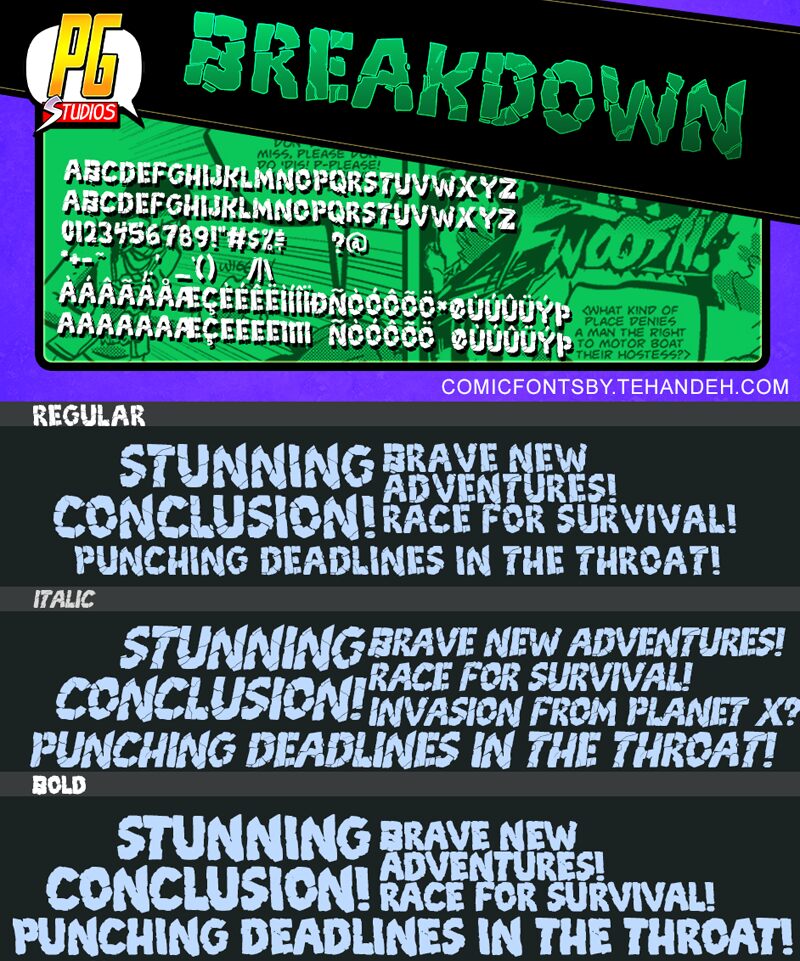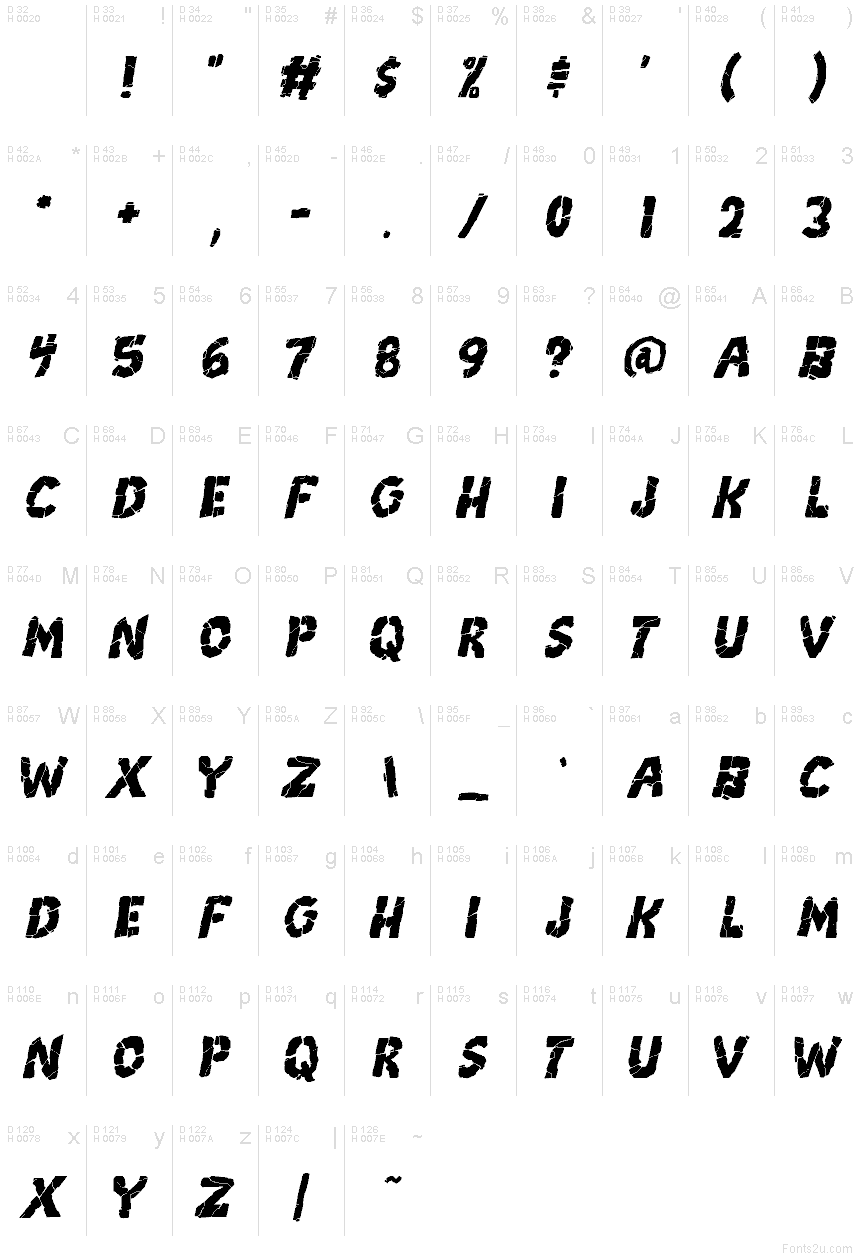
Breakdown PG Italic
Breakdown PG Italic font by PressGang Studios is a display font with a contemporary appeal and a distorted style that creates grunge texture and visual chaos. Showcasing distressed capitals, Breakdown PG Italic brings life to digital projects with its high-energy vibe, edgy aesthetic, and urban influence.